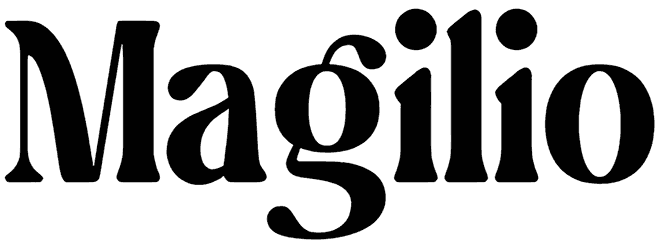
Magilio Font
Nothing can bring elegance to your artwork like a calligraphy font. Magilio is a perfect example, it creates this artistic look with bold and chic letters that would be great for wedding cards, business catalogs, logos, branding, and packaging.